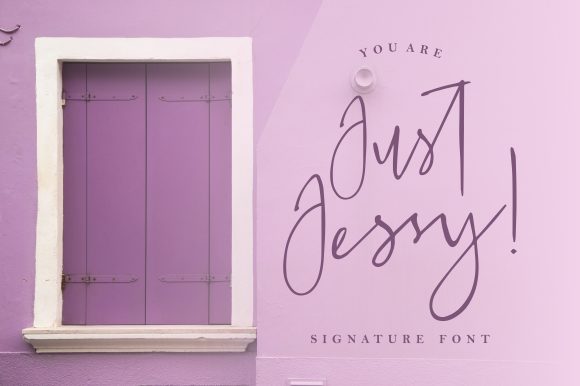
Prepare to be captivated by the enchanting allure of Just Jessy Font, a script typeface that will ignite your designs with elegance and charm. Its graceful lines dance across the page, weaving a tapestry of sophistication that will leave a lasting impression.
Indulge in the limitless possibilities Just Jessy Font offers. Let it become the cornerstone of your personal brand, adding a touch of class to your every creation. Enchant your invitations and stationery with its feminine grace, transforming them into heirlooms to be cherished. Embellish your wedding designs with its romantic flair, creating a visual symphony that will leave guests breathless.
Unleash your creativity with Just Jessy Font on social media, captivating your followers with eye-catching posts that demand attention. Let it elevate your advertisements, ensuring that your brand message resonates with impact and style. Whether you're a seasoned designer or just starting your creative journey, Just Jessy Font is the perfect companion to bring your visions to life.
Its versatility knows no bounds, seamlessly adapting to a myriad of design styles. Its elegant curves add a touch of refinement to logos, while its playful charm enlivens social media graphics. Experiment with different weights and sizes to achieve the perfect balance for your project, allowing your designs to shine with individuality and style.
Embrace the artistry of Just Jessy Font and witness the transformation it brings to your designs. Its exquisite beauty will captivate your audience, leaving them spellbound by the allure of your creations. Let Just Jessy Font be your secret weapon, empowering you to create designs that captivate, inspire, and leave an indelible mark.